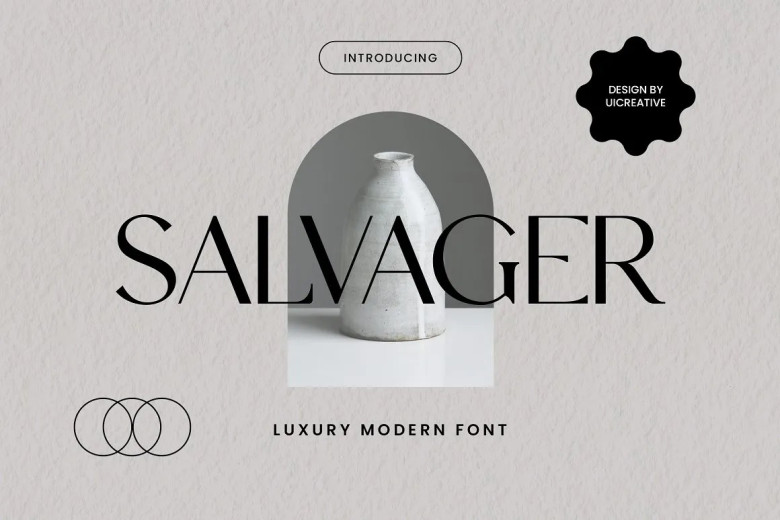
Salvager Font
Salvager is a luxury modern serif font that feels beautiful classical, elegant, and modern. This font is ideally suited for a wide variety of projects, such as signature, stationery, logo, wedding, typography quotes.
Salvager Serif Font